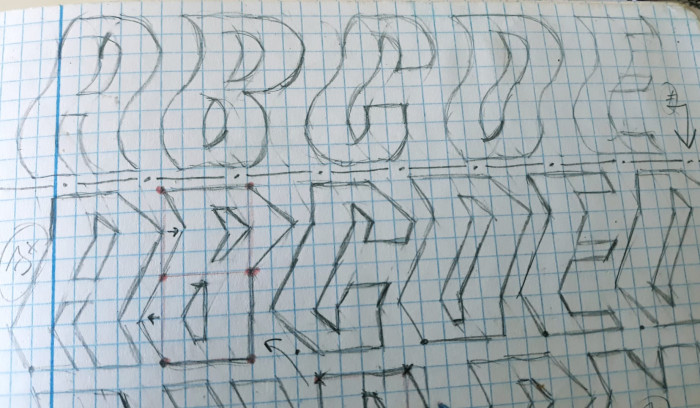
The font can work by itself or curious effects can be achieved. The 3D aspect becomes real by adding one or two gray bands to our text as the samples show. Some alternatives (A, a, E, Y) are at the end of the Basic Latin set.
The font can work by itself or curious effects can be achieved. The 3D aspect becomes real by adding one or two gray bands to our text as the samples show. Some alternatives (A, a, E, Y) are at the end of the Basic Latin set. Try it, please.
@swash.buckler: Wavy letters was my first idea, but I had to abandon that path because I was not satisfied with the final aspect of the glyphs. Thanks, and glad you like it!
Talking a little about all, the name "zpains" refers to my country, Spain, and the moments of duality in which we are living here (that is why I add the "s" final ", referring to the 2 Spains in constant confrontation that already described the great poet Antonio Machado): the eternal social struggle liberalism-conservatism. It's a kind of view.
@jirivk: You're welcome, pal. I've always thought that it might be useful for someone to show the creative process of a font. Many fontstructors make their fonts directly on the screen without prior drawing, but I'm old-schoolish and I like to see how a glyph design will look if I first have done it with pencil on paper.
The font can work by itself or curious effects can be achieved. The 3D aspect becomes real by adding one or two gray bands to our text as the samples show. Some alternatives (A, a, E, Y) are at the end of the Basic Latin set. Try it, please.
curious design indeed, the font almost seems to have the effect of being viewed through water, splendid finished product
@swash.buckler: Wavy letters was my first idea, but I had to abandon that path because I was not satisfied with the final aspect of the glyphs. Thanks, and glad you like it!
Talking a little about all, the name "zpains" refers to my country, Spain, and the moments of duality in which we are living here (that is why I add the "s" final ", referring to the 2 Spains in constant confrontation that already described the great poet Antonio Machado): the eternal social struggle liberalism-conservatism. It's a kind of view.
yw. and thanks for posting the sketch drawing. nice to see the genesis of the letterform.
@jirivk: You're welcome, pal. I've always thought that it might be useful for someone to show the creative process of a font. Many fontstructors make their fonts directly on the screen without prior drawing, but I'm old-schoolish and I like to see how a glyph design will look if I first have done it with pencil on paper.
Excellent work and these grey bands in your samples are very effective!